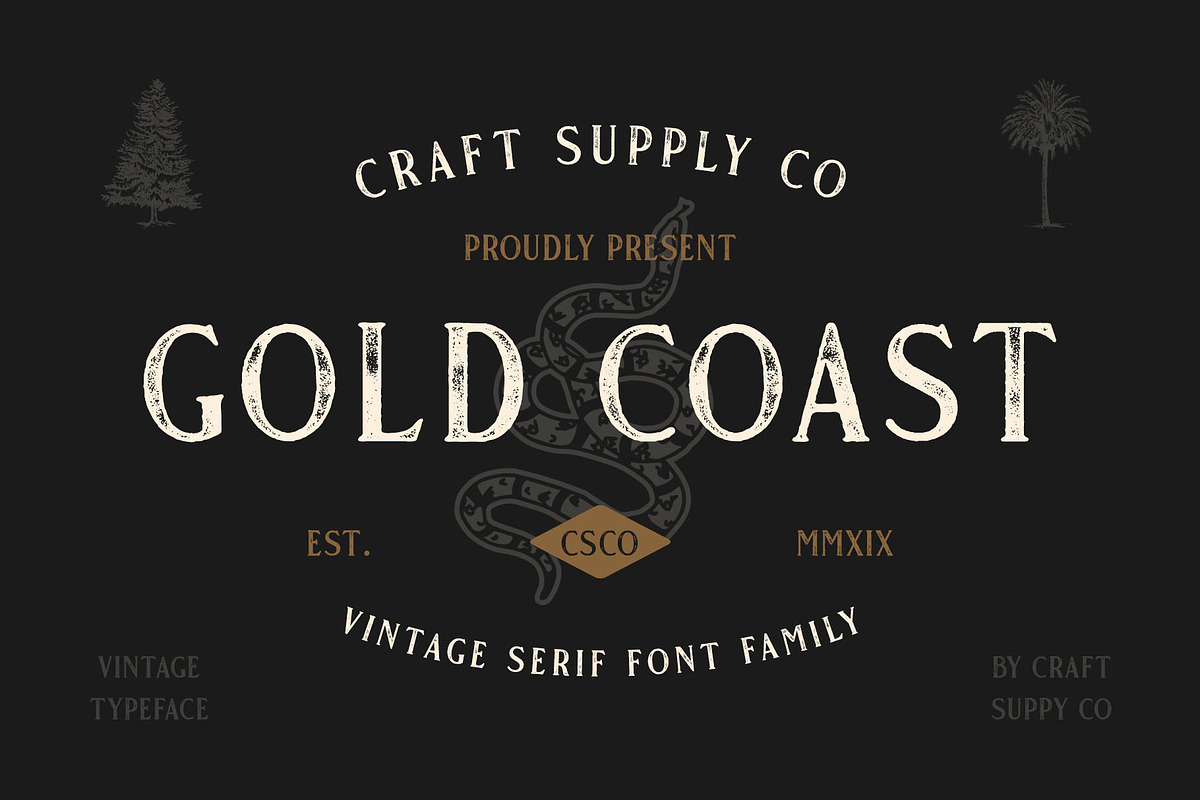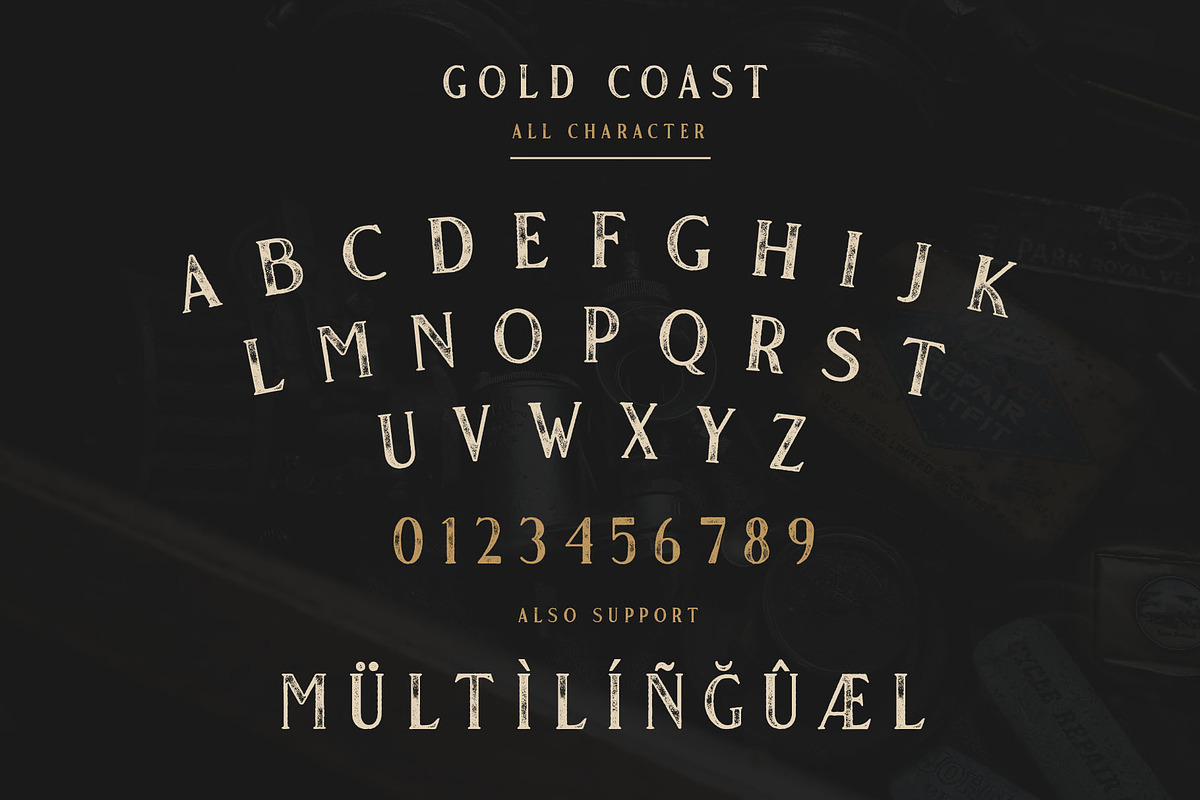
Gold Coast - Vintage Serif + Extras
Introducing Gold Coast - Vintage Serif Font Family + Extras includes 4 Style Fonts. It can be used to create almost all types of design projects like print materials. Just use your imagination and some graphic design set in Extras, your project will become more alive and look great than ever with one of the Gold Coast Font.
You want to make a greeting card or a package design, or even a brand identity, craft design, any DIY project, book title, wedding font, pop vintage design, retro design or any purpose to make your art / design project look pretty and trendy? Feel free to play with all style of this font!
- Gold Coast Regular
- Gold Coast Outline
- Gold Coast Rough
- Gold Coast Stamp
- Extra Badges
- Preview
- All Caps Fonts
- Accents (Multilingual characters) (AÀÁÂÃÄÅCÇDÐEÈÉÊËIÌÍÎÏNÑOØÒÓÔÕÖUÙÜÚÛWYÝŸỲŸÆŒßÞ)